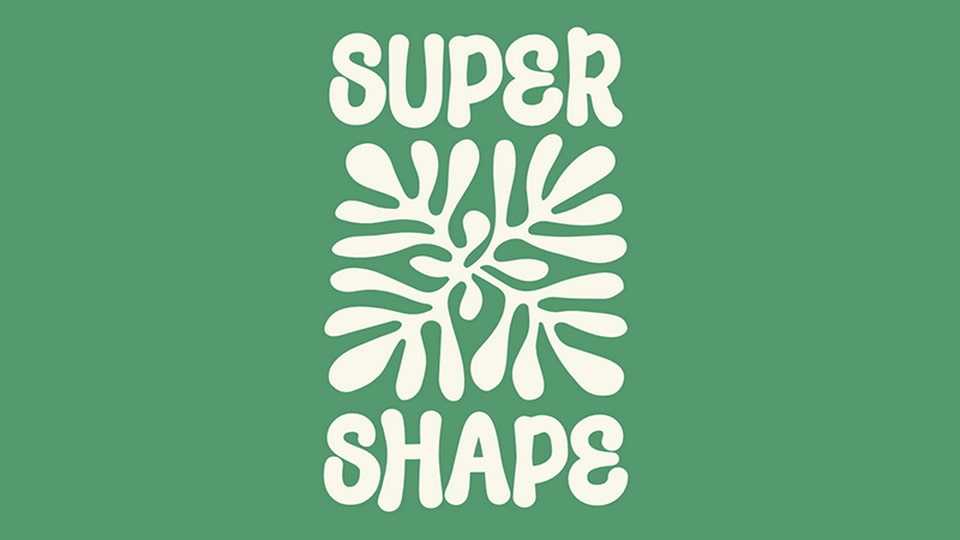
Download Super Shape font, a simple yet playful hand-drawn typeface with an organic, natural feel and friendly vibe while maintaining a clean and approachable design.